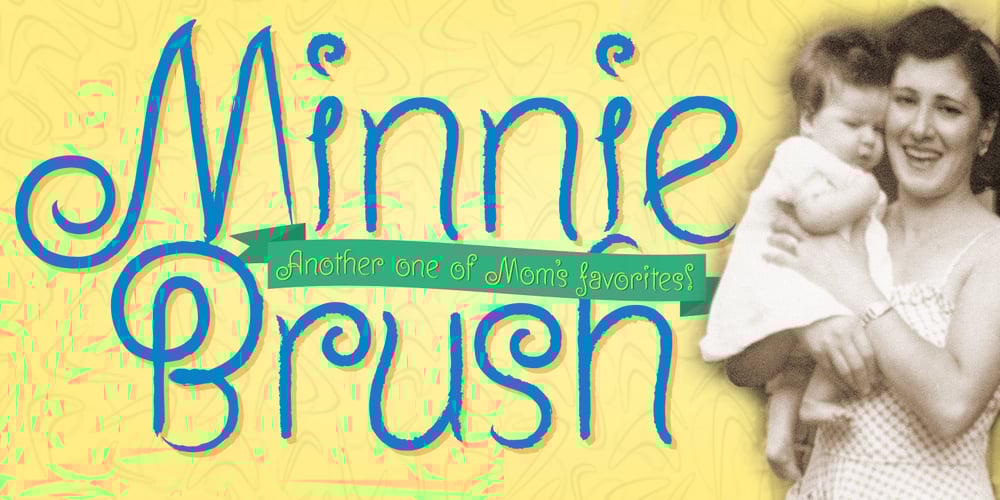
Minnie Brush Font Family was designed by James A. Lebbad and published by Lebbad Design. Minnie Brush contains 1 styles and family package options. Minnie Brush is an modern upright brush script. This curly rough textured font is great for display use. It comes with numerous alternate characters.